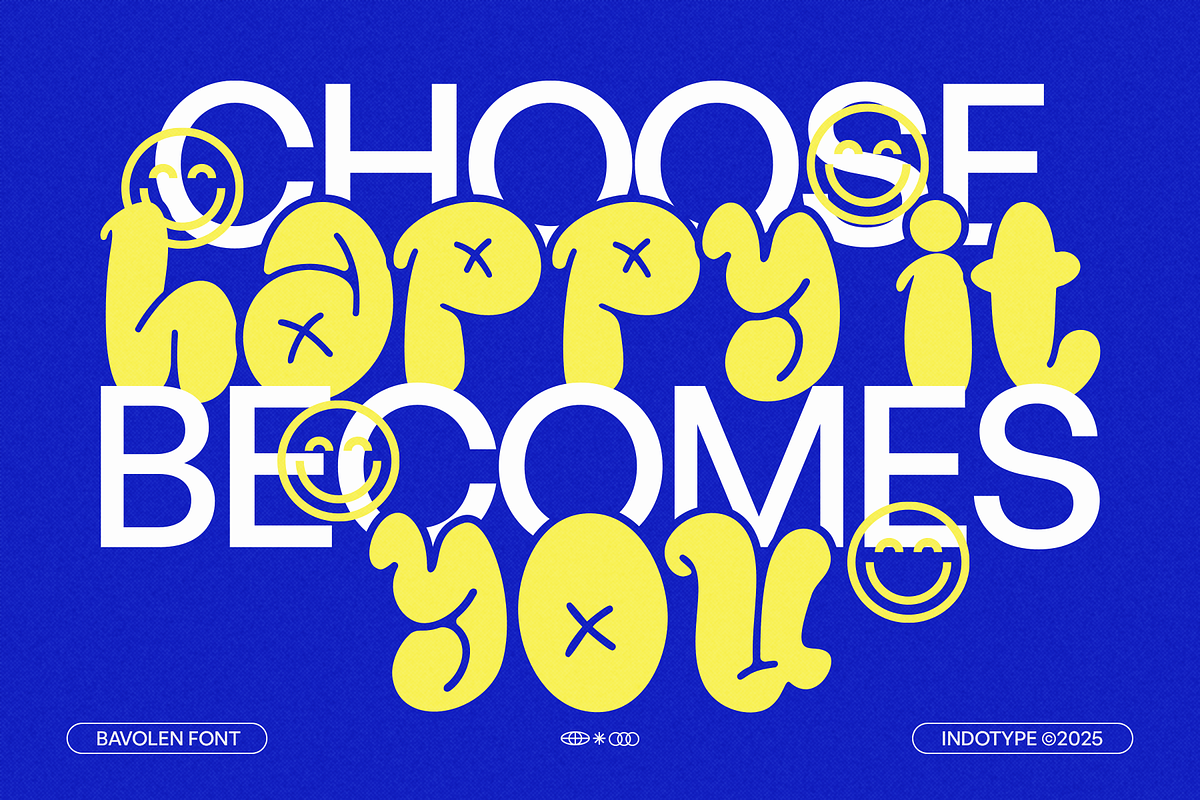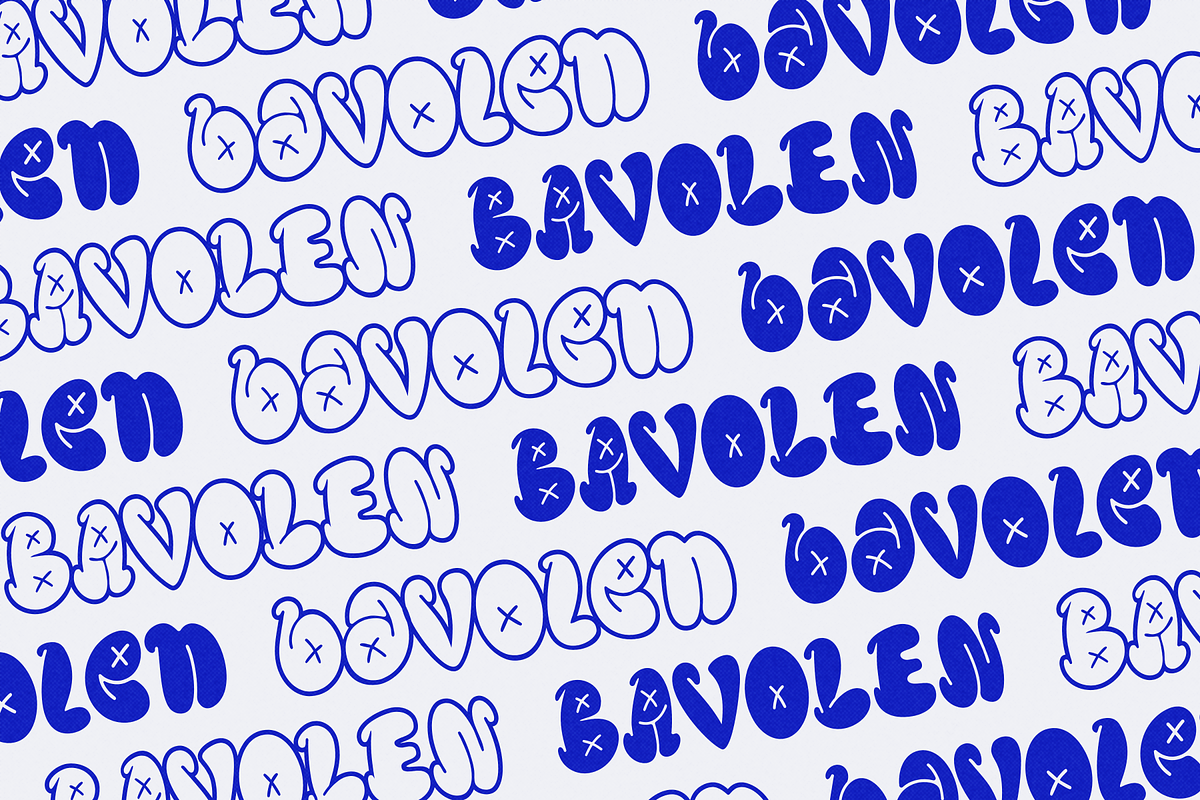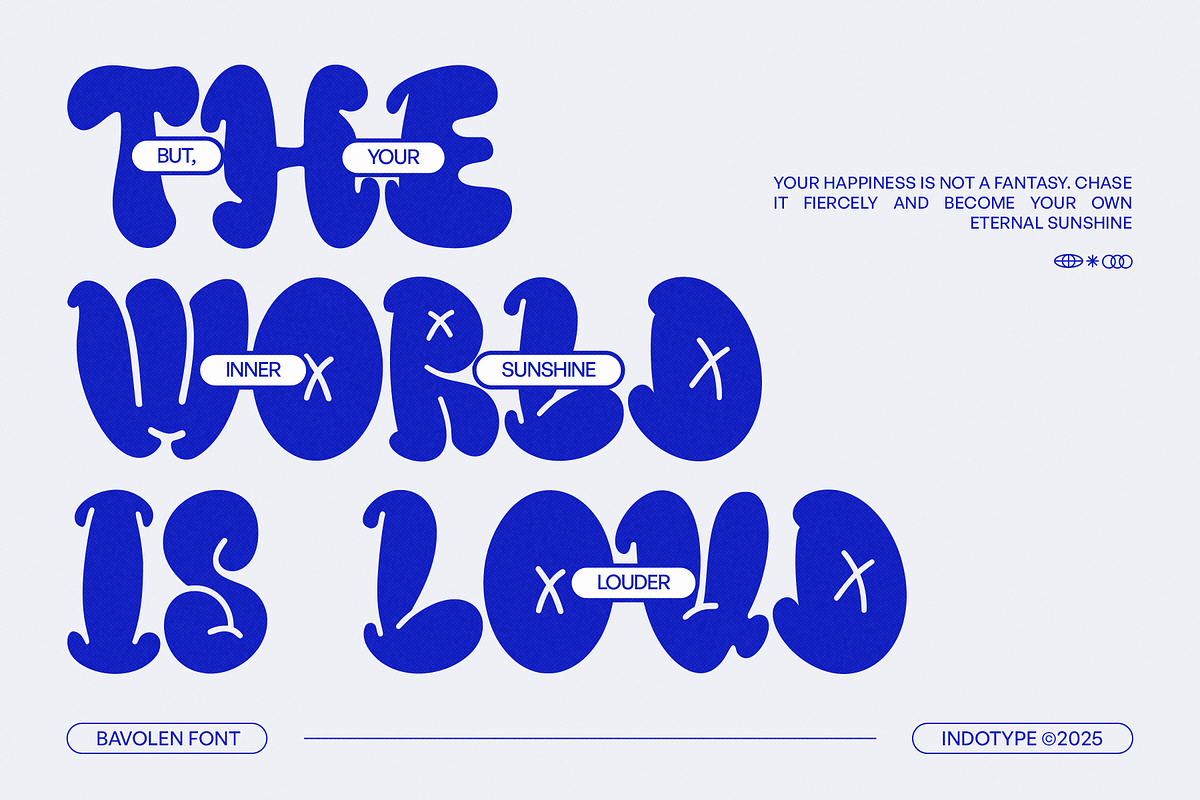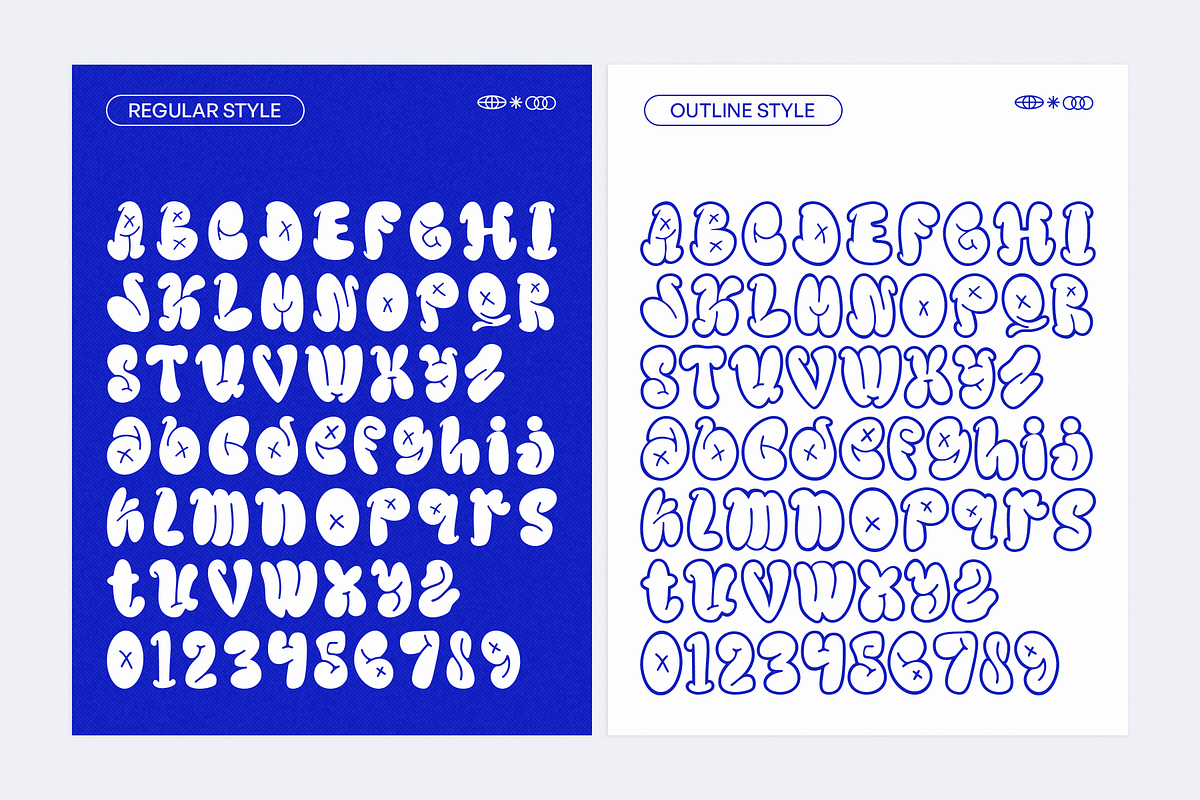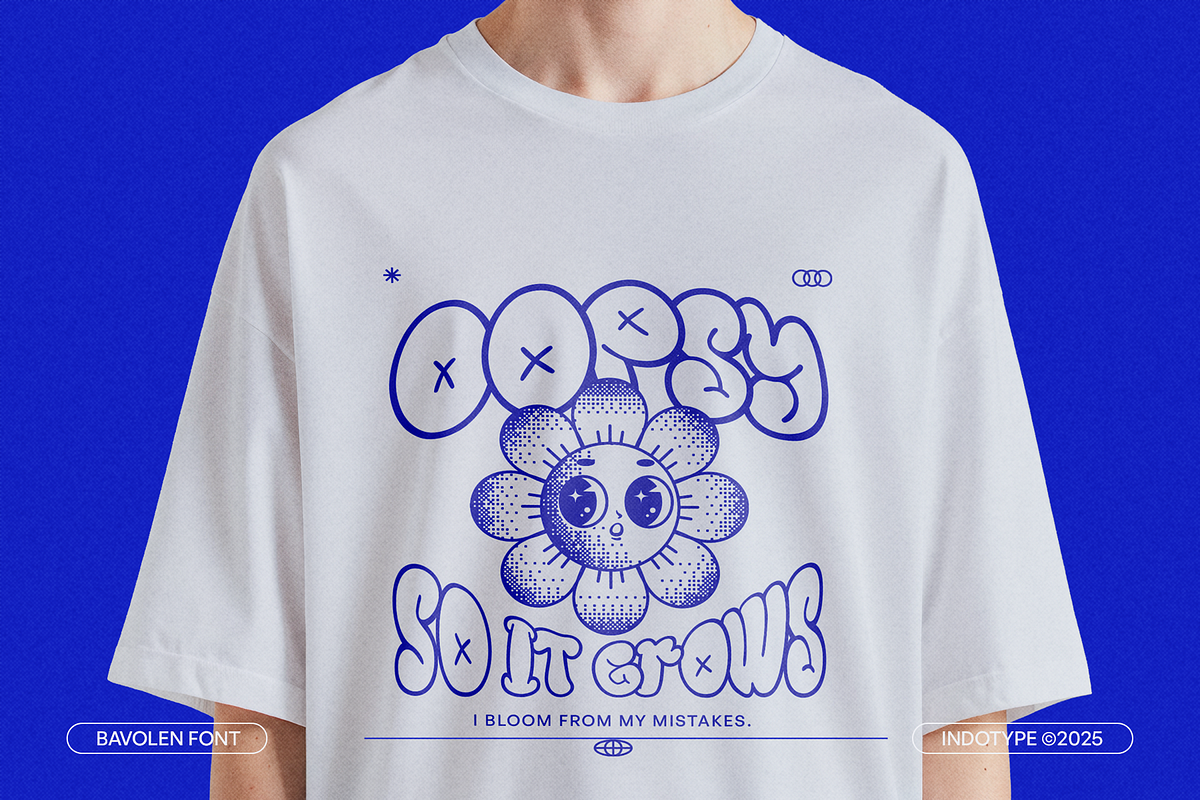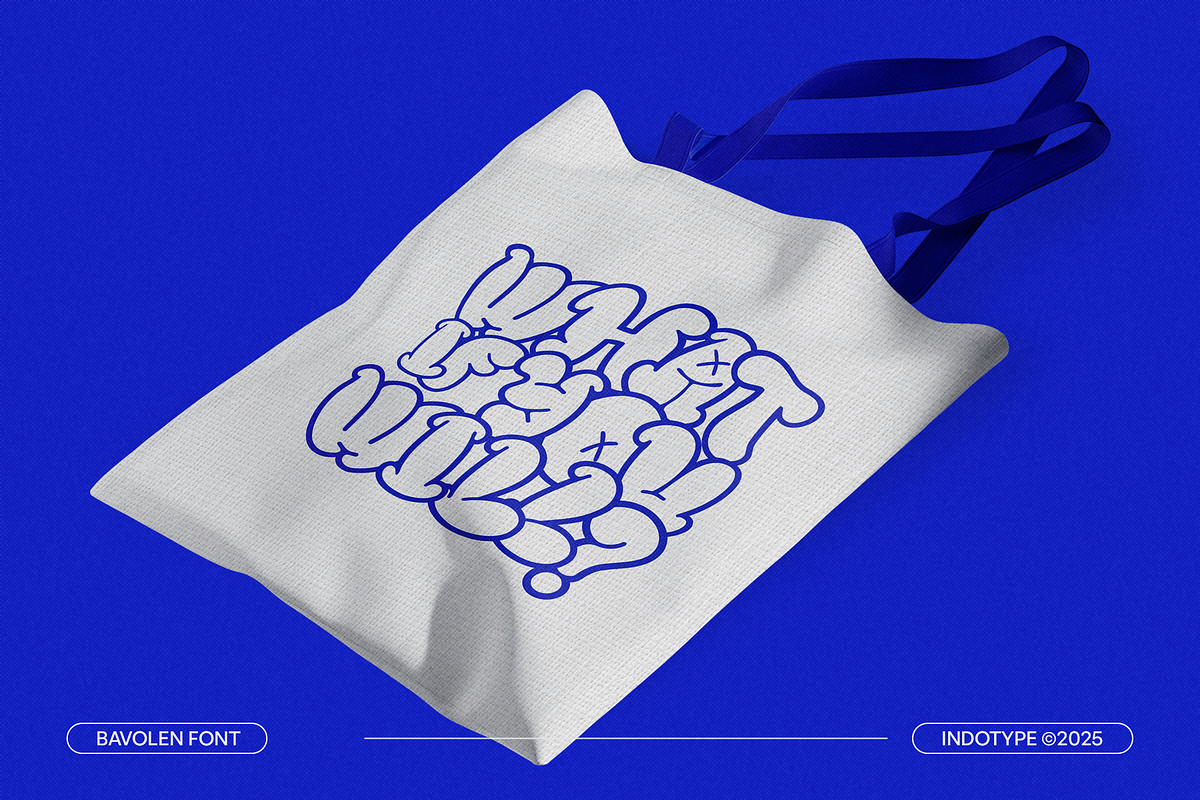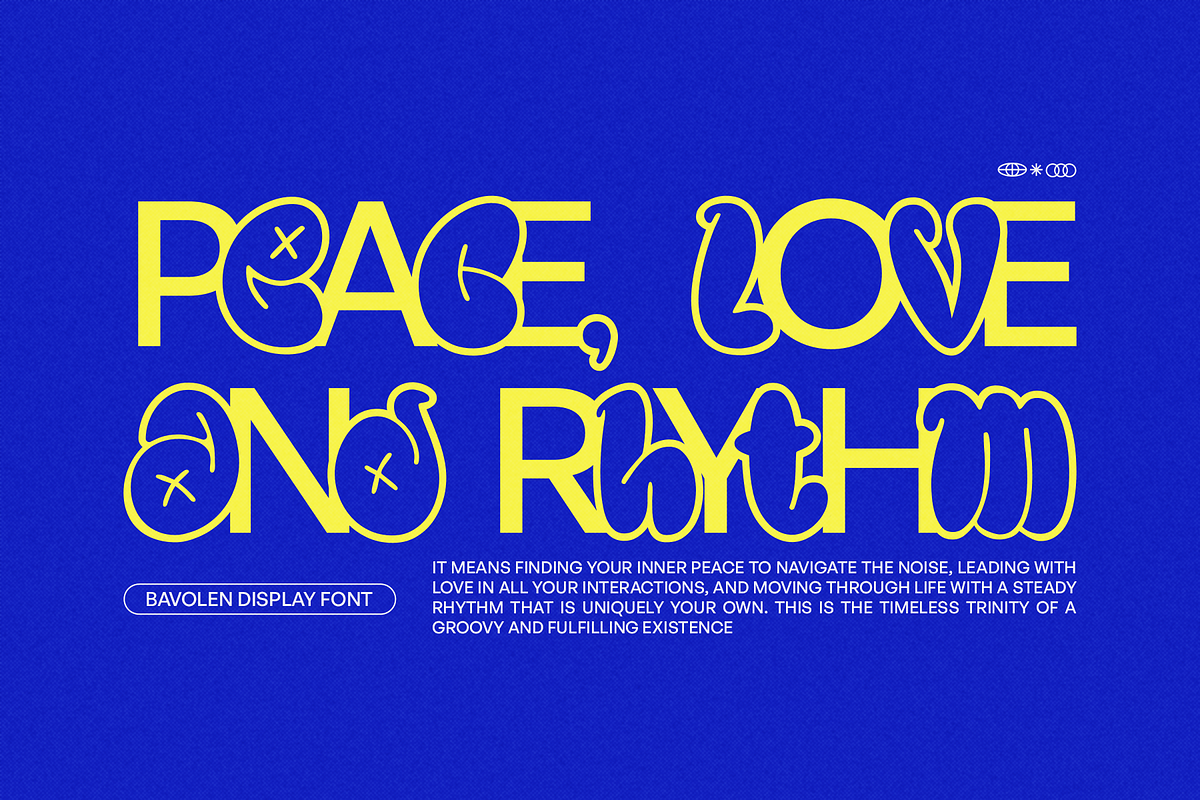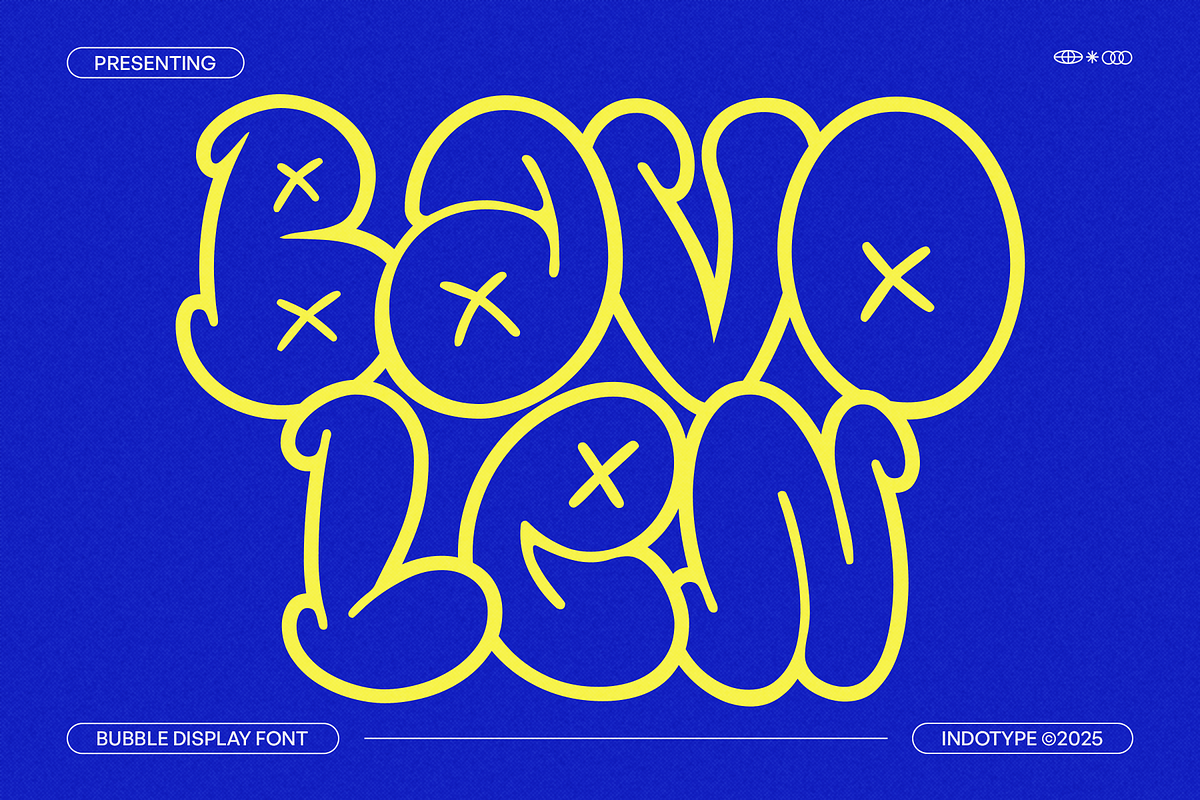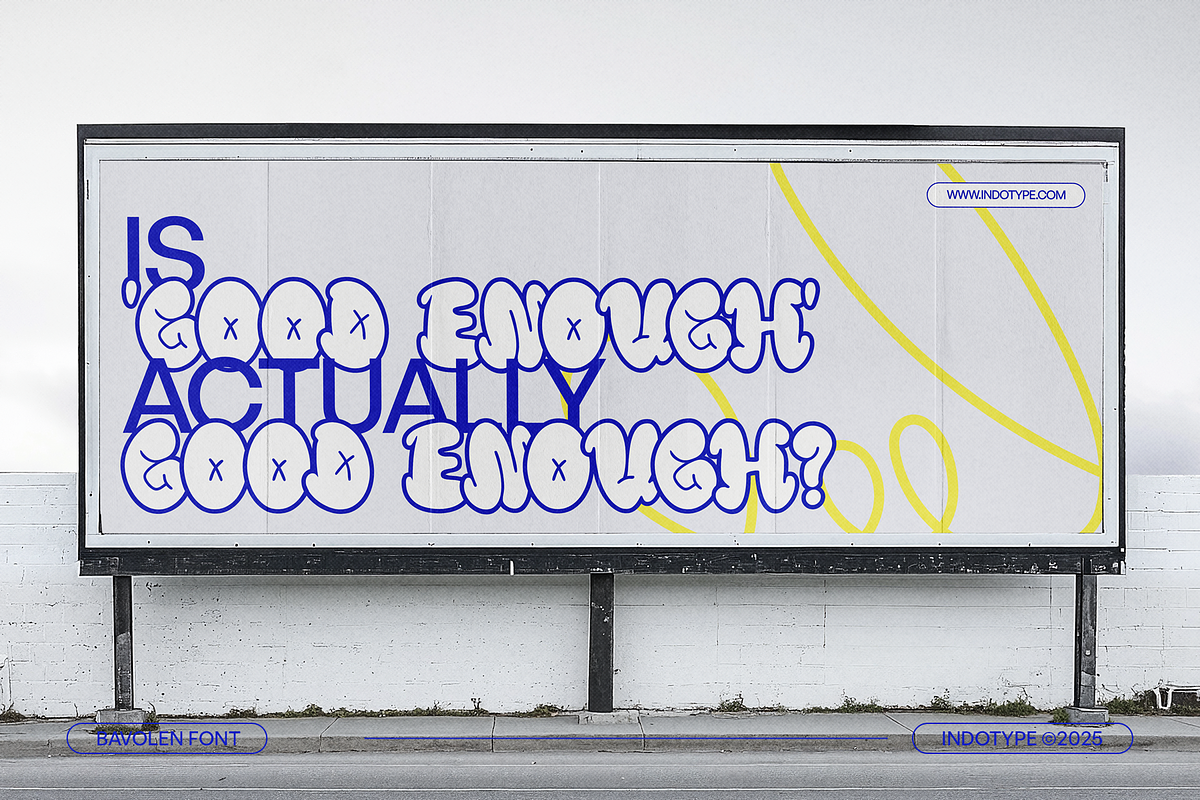
Bavolen - Bubble Graffiti Font
Bavolen is a bold bubble display typeface that captures the lively spirit of graffiti and street-style lettering. With its rounded, inflated shapes and playful rhythm, Bavolen delivers a strong visual personality that’s both fun and impactful.
Each character feels hand-drawn and expressive, bringing an authentic urban energy to any design. Its generous curves and soft outlines make it perfect for youthful branding, streetwear logos, poster art, album covers, or any creative project that wants to pop with character and positivity.
Bavolen’s smooth yet energetic design ensures maximum readability while maintaining its bold personality, making it an excellent choice for both digital and print use.